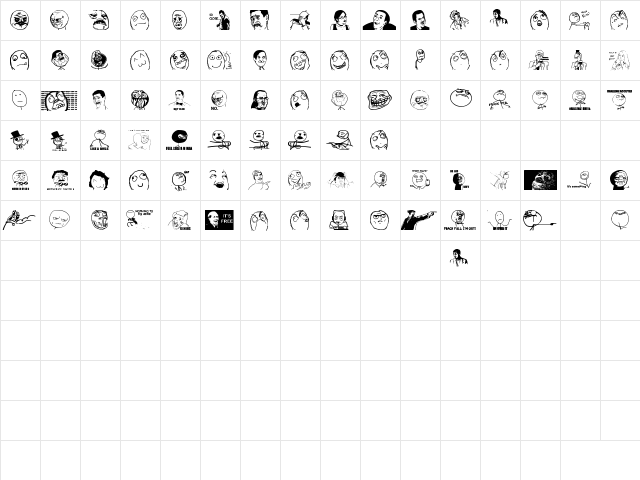
THEmemefont Regular
Design Context for THEmemefont Typeface
THEmemefont is a composed and adaptable typeface that performs quietly and consistently across a wide range of design contexts.